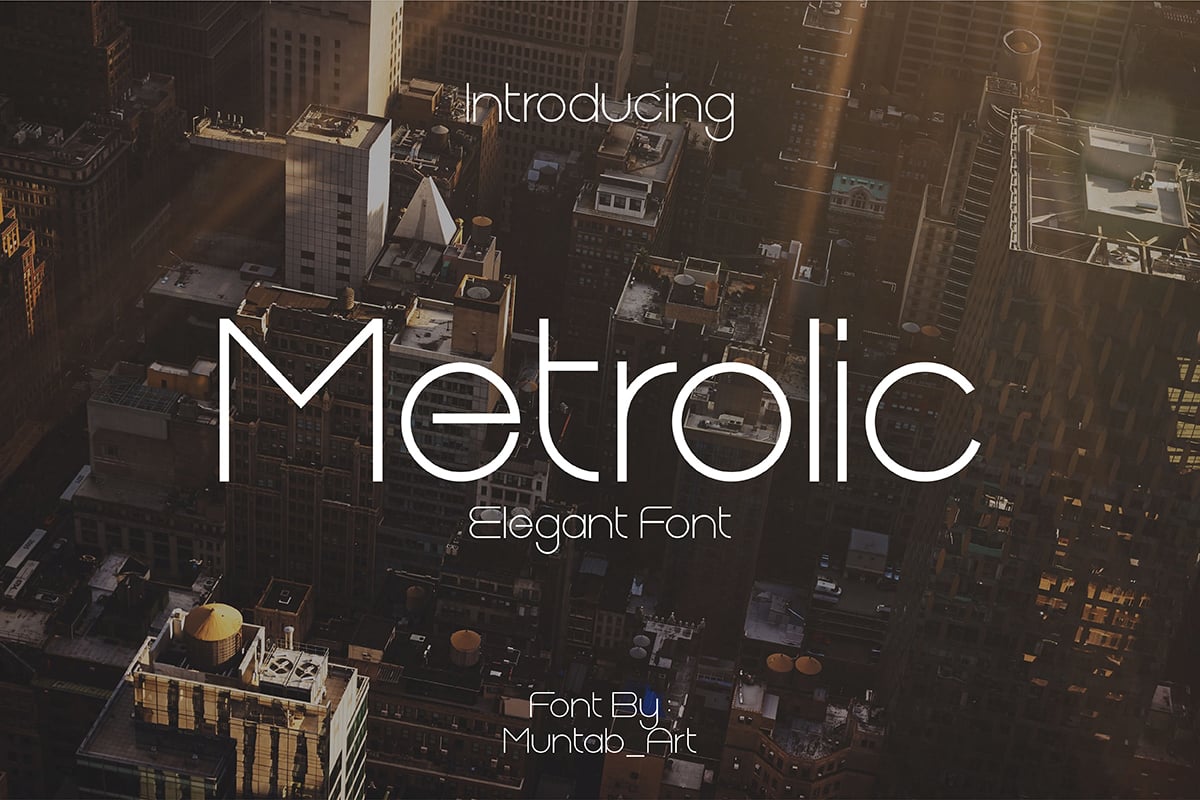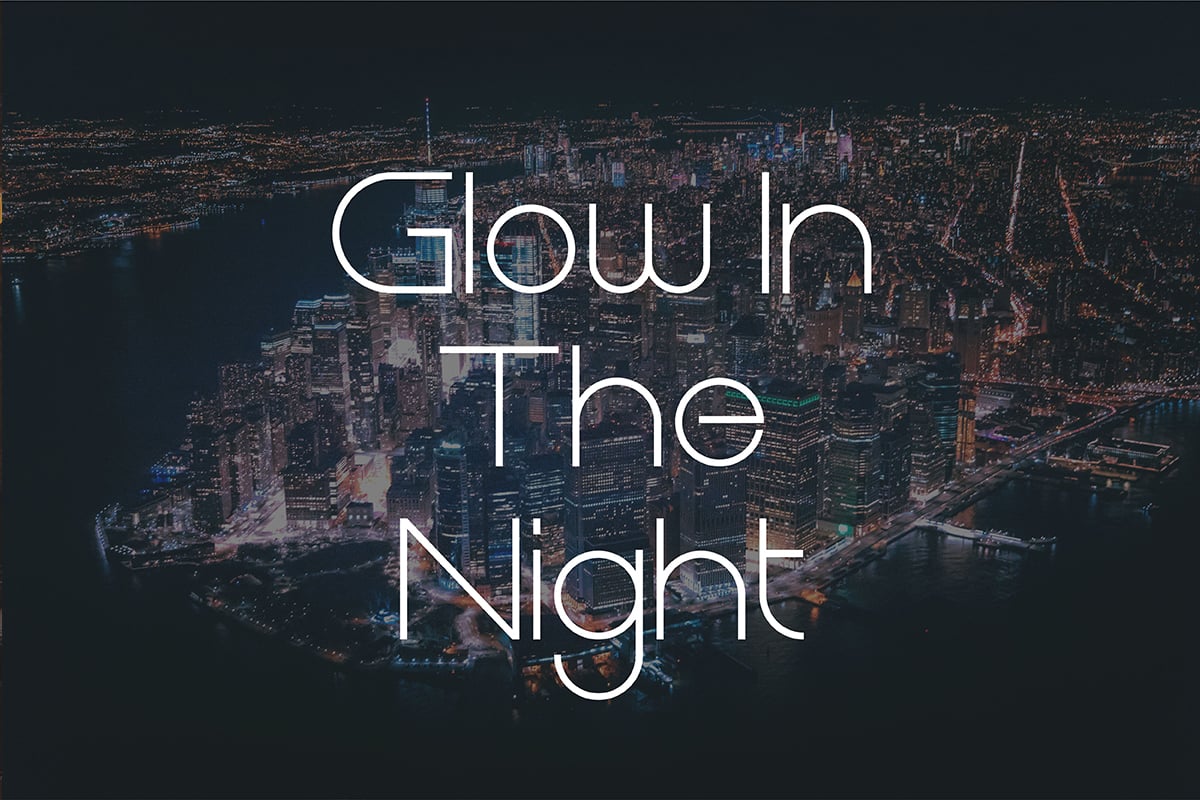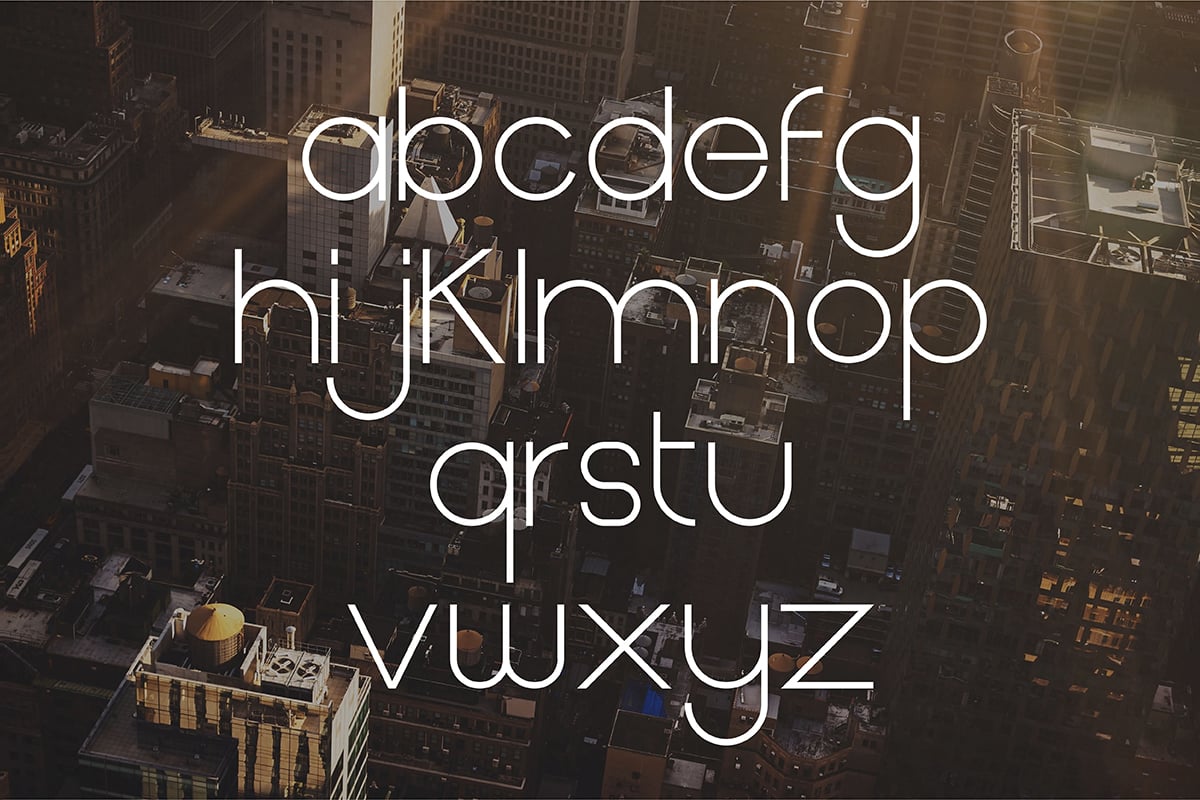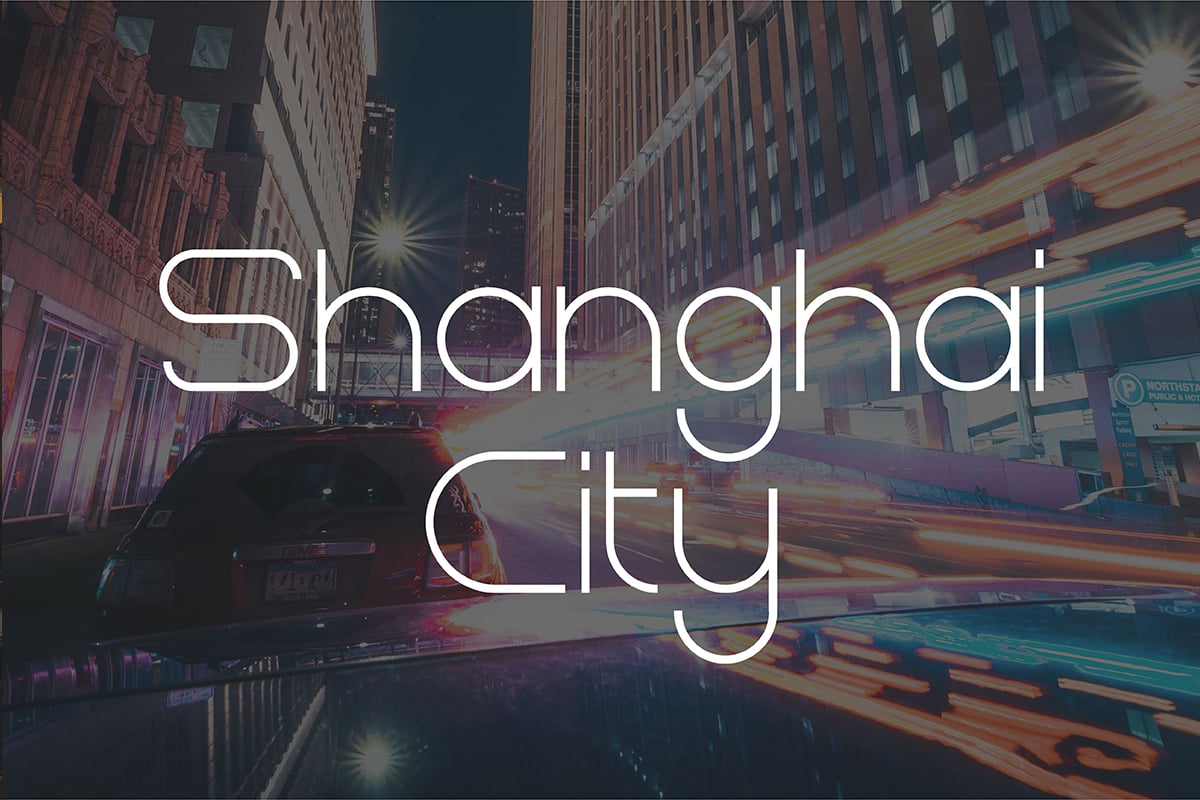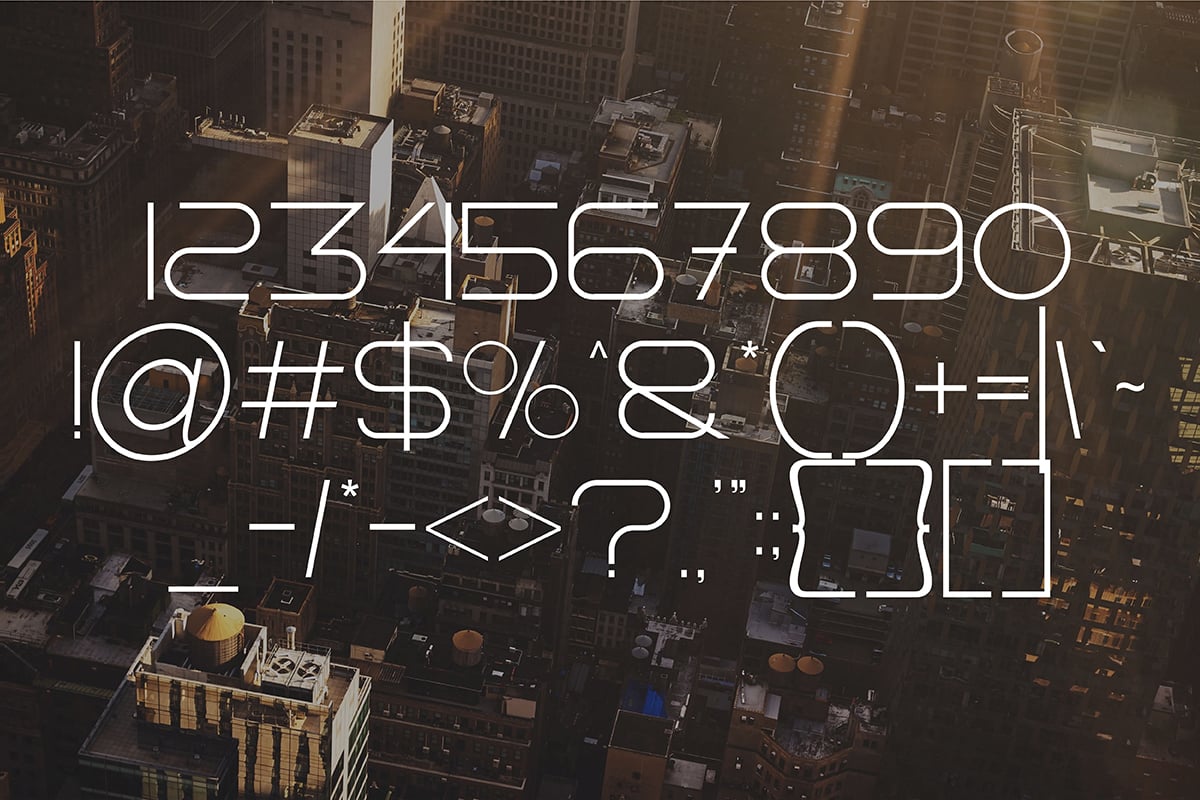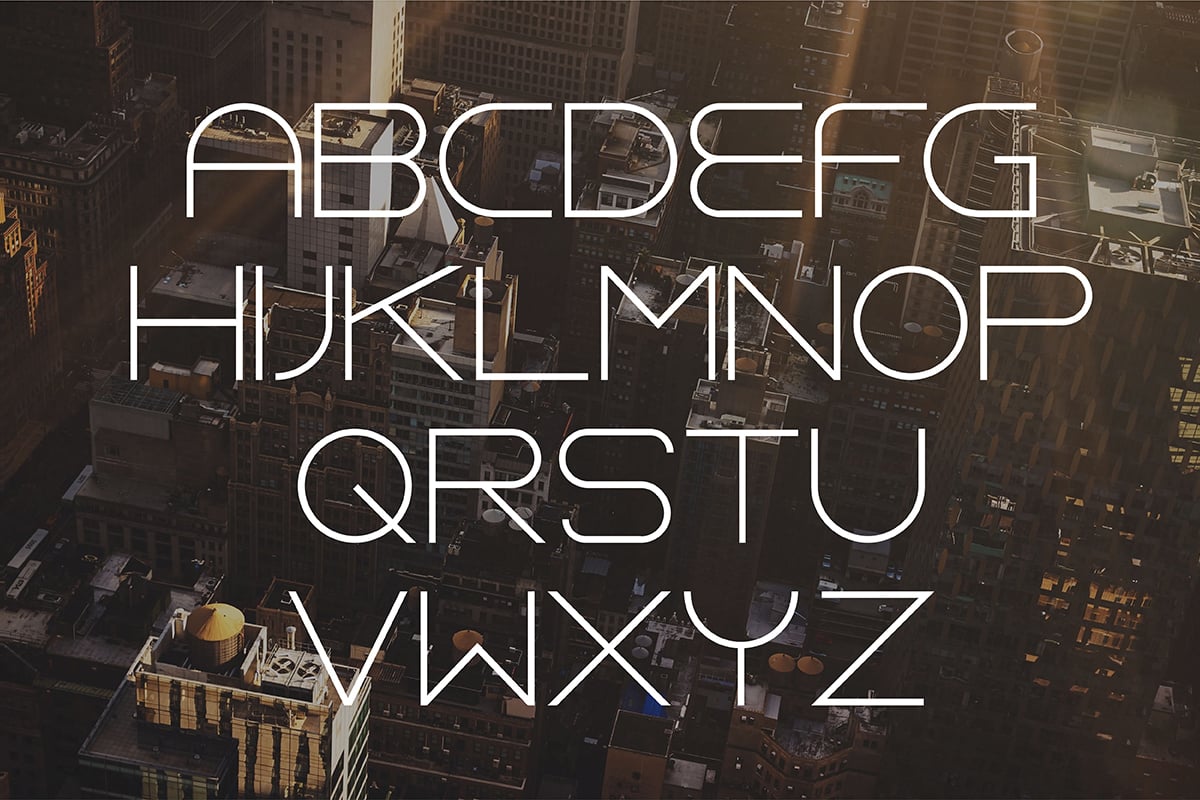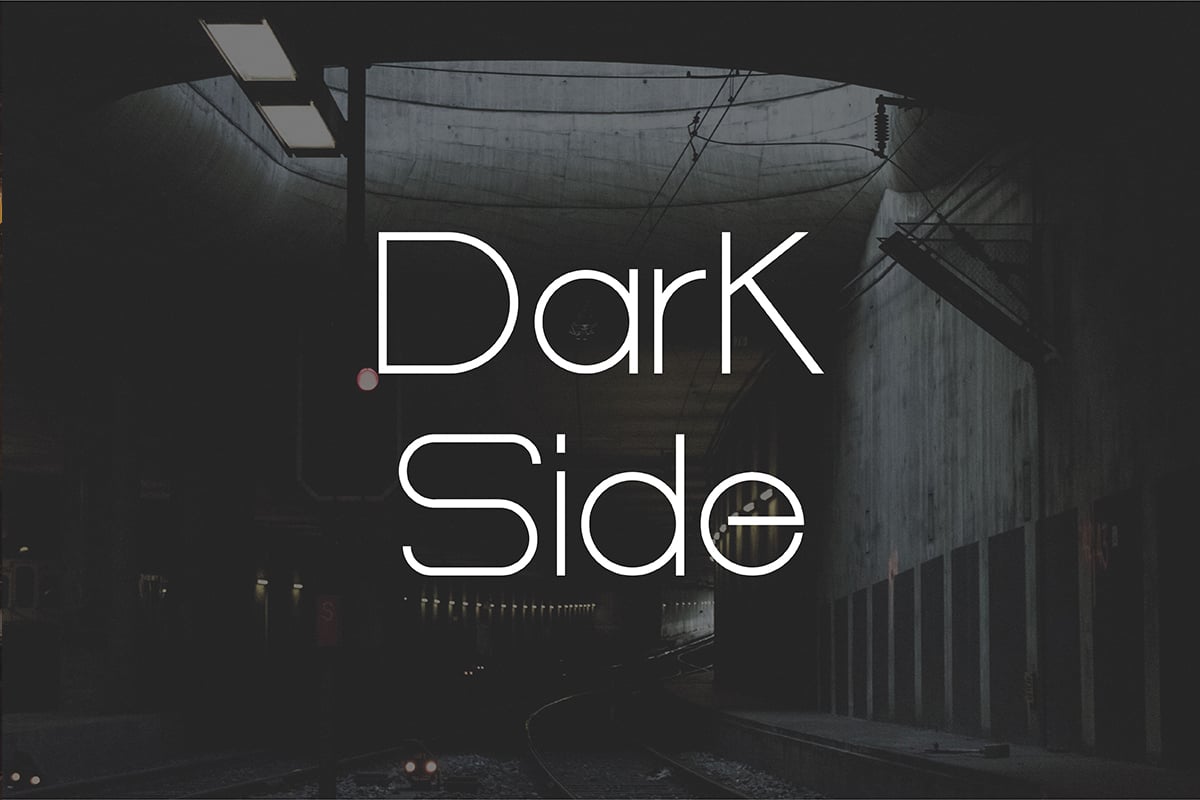
Metrolic | Elegant Font
Metrolic fonts includes uppercase letters, lowercase letters, numerals, a large range of punctuation. sans serif font with modern style. Created for poster, web design, branding, illustrations, badges and some other works.